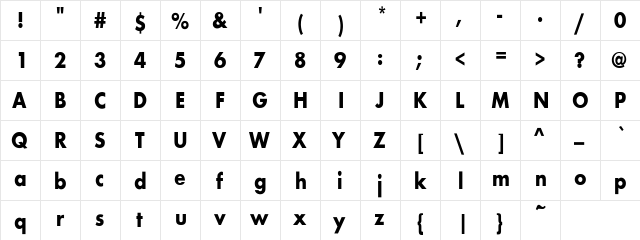
BelmarCnd-Bold Regular Font Preview
BelmarCnd-Bold Regular
Design Context for BelmarCnd-Bold Typeface
BelmarCnd-Bold is a composed and adaptable typeface that performs quietly and consistently across a wide range of design contexts. Its bold stroke weight gives it real presence on the page.